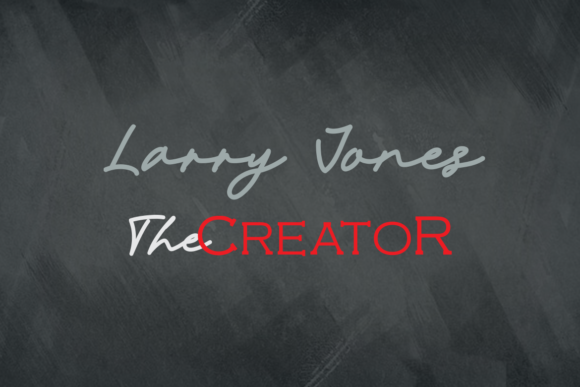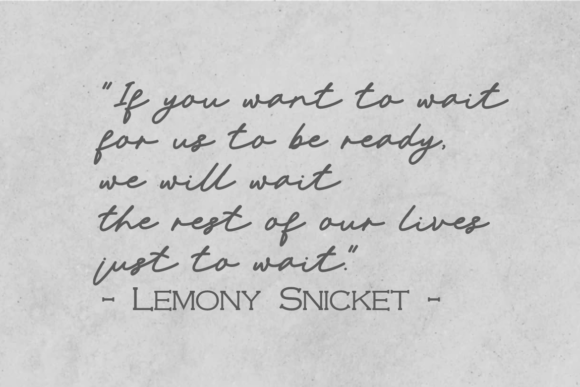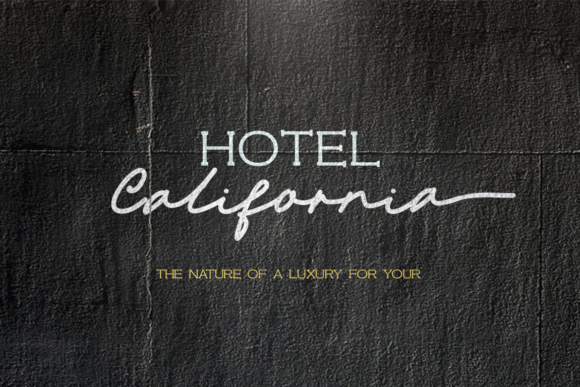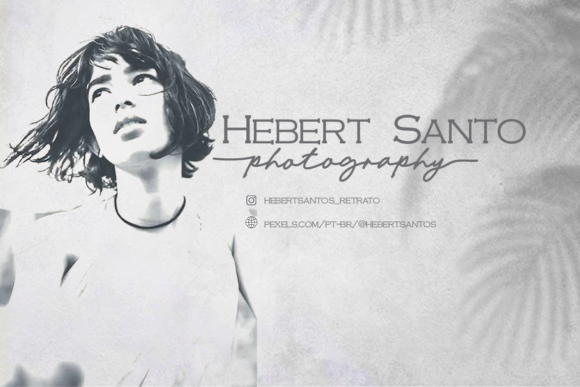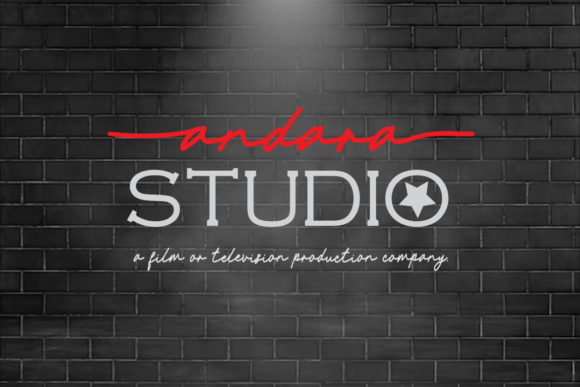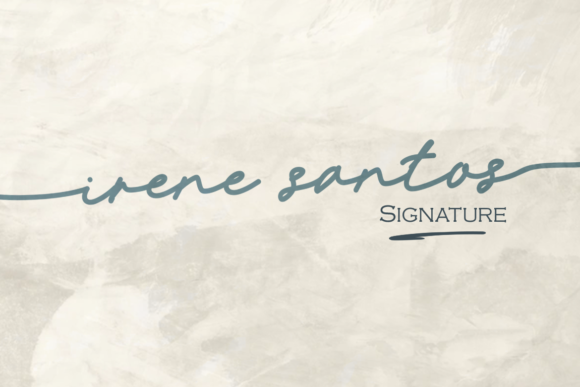
Introducing Doctor Romantic Font: A Magical Pair of Script and Serif Fonts
Are you a designer or crafter looking for a unique and versatile font to add a touch of magic to your creative projects? Look no further than the Doctor Romantic Font, a stunning pair of script and serif fonts designed to complement each other perfectly. In this article, we’ll dive into the features and benefits of this amazing font, and explore how it can elevate your craft to the next level.
A Perfect Pair: Script and Serif Fonts
The Doctor Romantic Font consists of two distinct fonts: a beautiful script font and a elegant serif font. These two fonts are designed to work together seamlessly, allowing you to mix and match them to create a wide range of visual effects. Whether you’re creating a logo, a poster, or a digital graphic, this font pair has got you covered.
The script font is perfect for adding a touch of elegance and sophistication to your design. Its flowing curves and intricate details make it ideal for use in titles, headings, and other display text. On the other hand, the serif font provides a solid foundation for body text, offering excellent readability and a professional finish.
One of the standout features of the Doctor Romantic Font is its PUA (Private Use Area) encoding. This means that you can access all the glyphs and swashes easily, giving you complete creative control over your design. With PUA encoding, you can use the font’s built-in ligatures, stylistic alternates, and other advanced features to add an extra layer of depth and interest to your text.
The Doctor Romantic Font is a dream come true for designers and crafters who want to add a touch of magic to their projects. Whether you’re creating:
- Digital graphics and social media assets
- Print materials like brochures, flyers, and posters
- Craft projects like scrapbooking, card making, and journaling
- Web graphics and UI elements
This font pair is the perfect choice. Its versatility and range of applications make it an essential addition to any designer’s or crafter’s toolkit.
Here are just some of the key features and benefits of the Doctor Romantic Font:
- Two font styles: Script and serif fonts designed to complement each other perfectly
- PUA encoded: Easy access to glyphs, swashes, and advanced font features
- High-quality design: Beautifully crafted with intricate details and elegant lines
- Versatile: Suitable for a wide range of design applications, from digital graphics to print materials and craft projects
| Font Name | Doctor Romantic Font |
| Author | WinType |